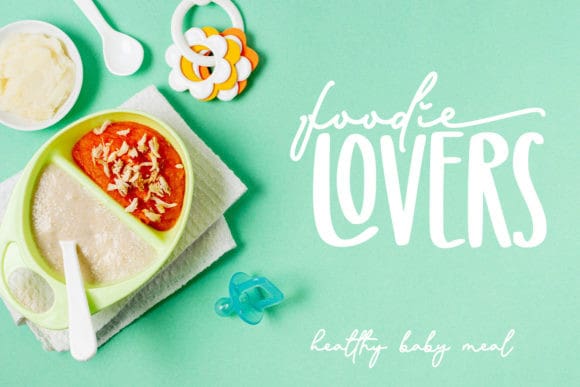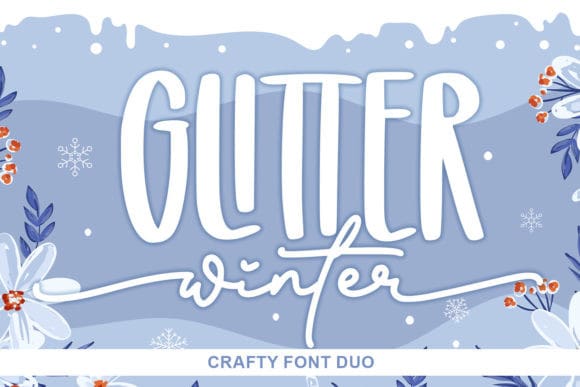
Glitter Winter Font Duo
Glitter Winter Font Duo is a splendid duo font (display and handwritten). Every character has a delicate and authentic feel, perfect for adding a natural appearance to your most creative projects and designs! This font is PUA encoded which means you can access all of the glyphs and swashes with ease!